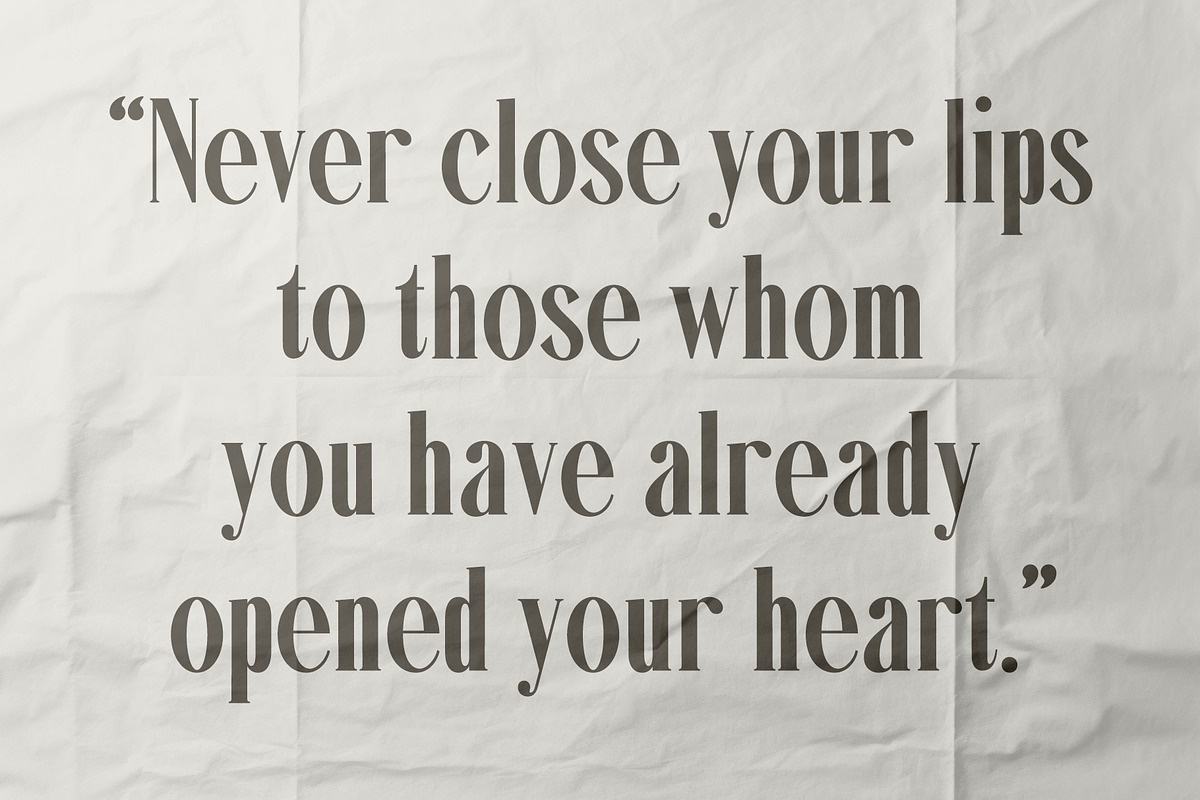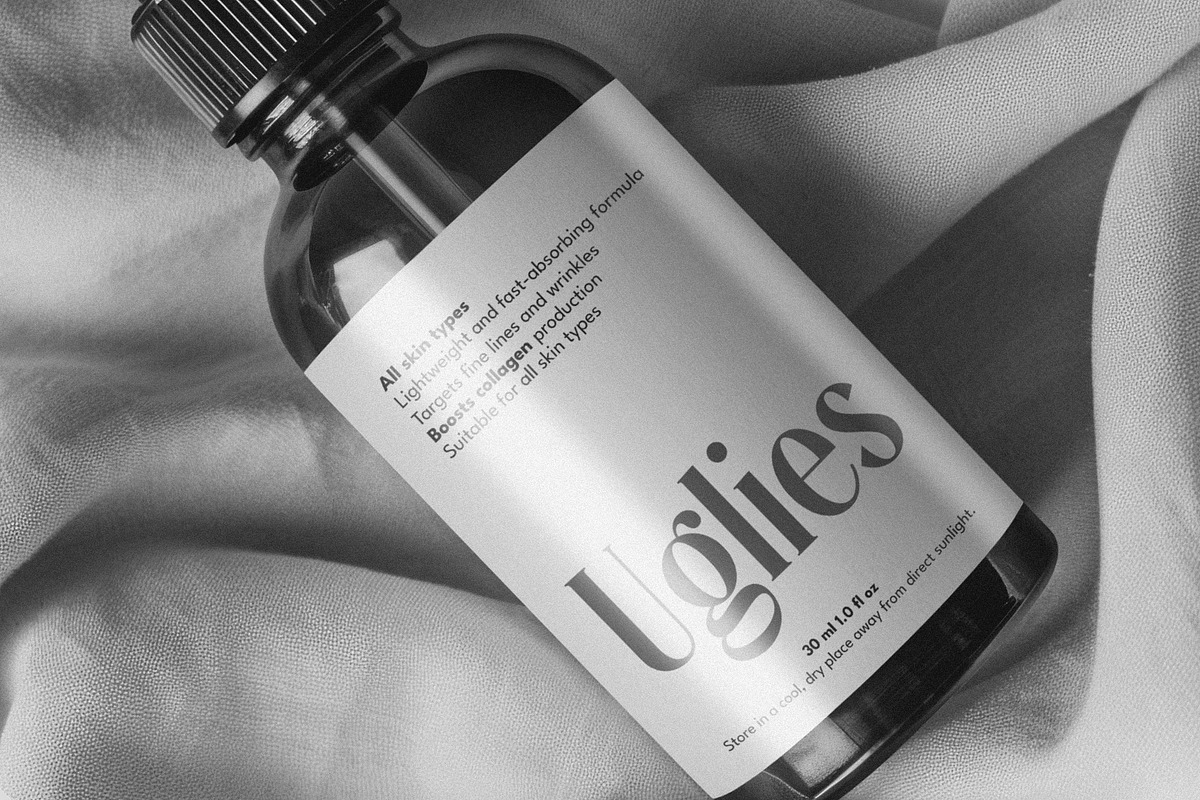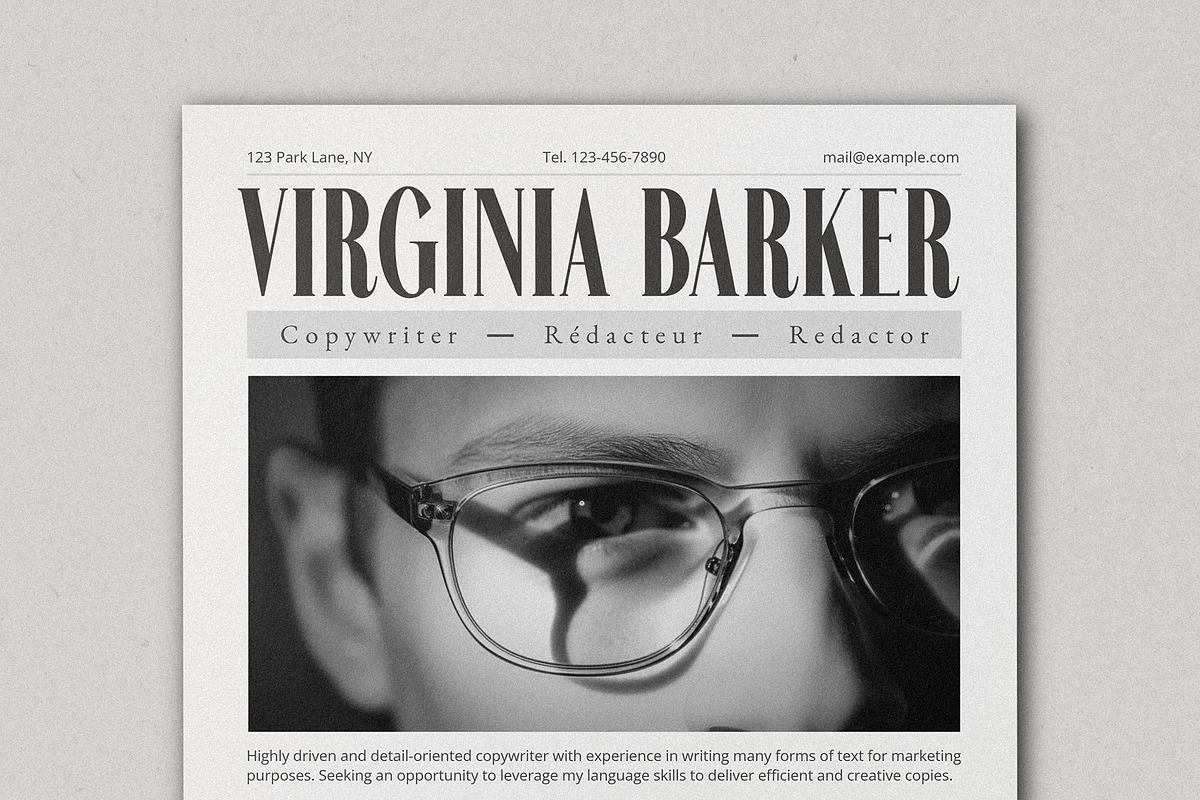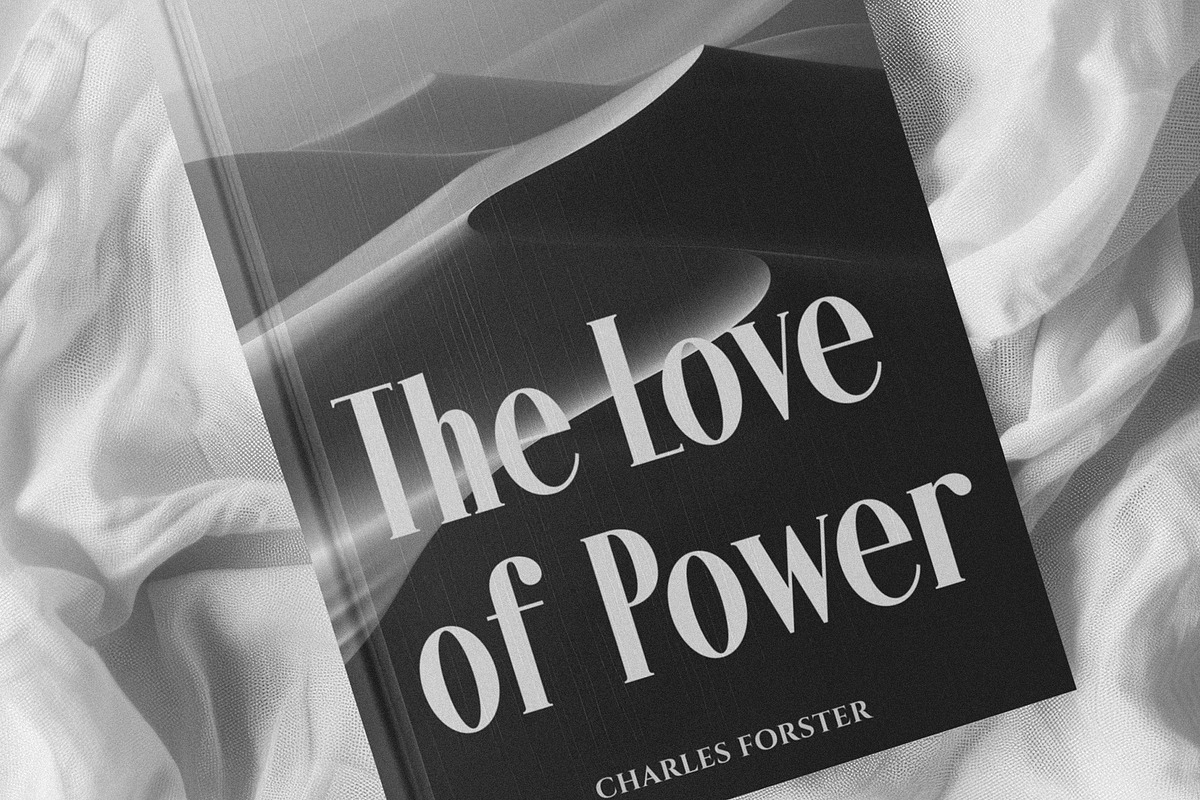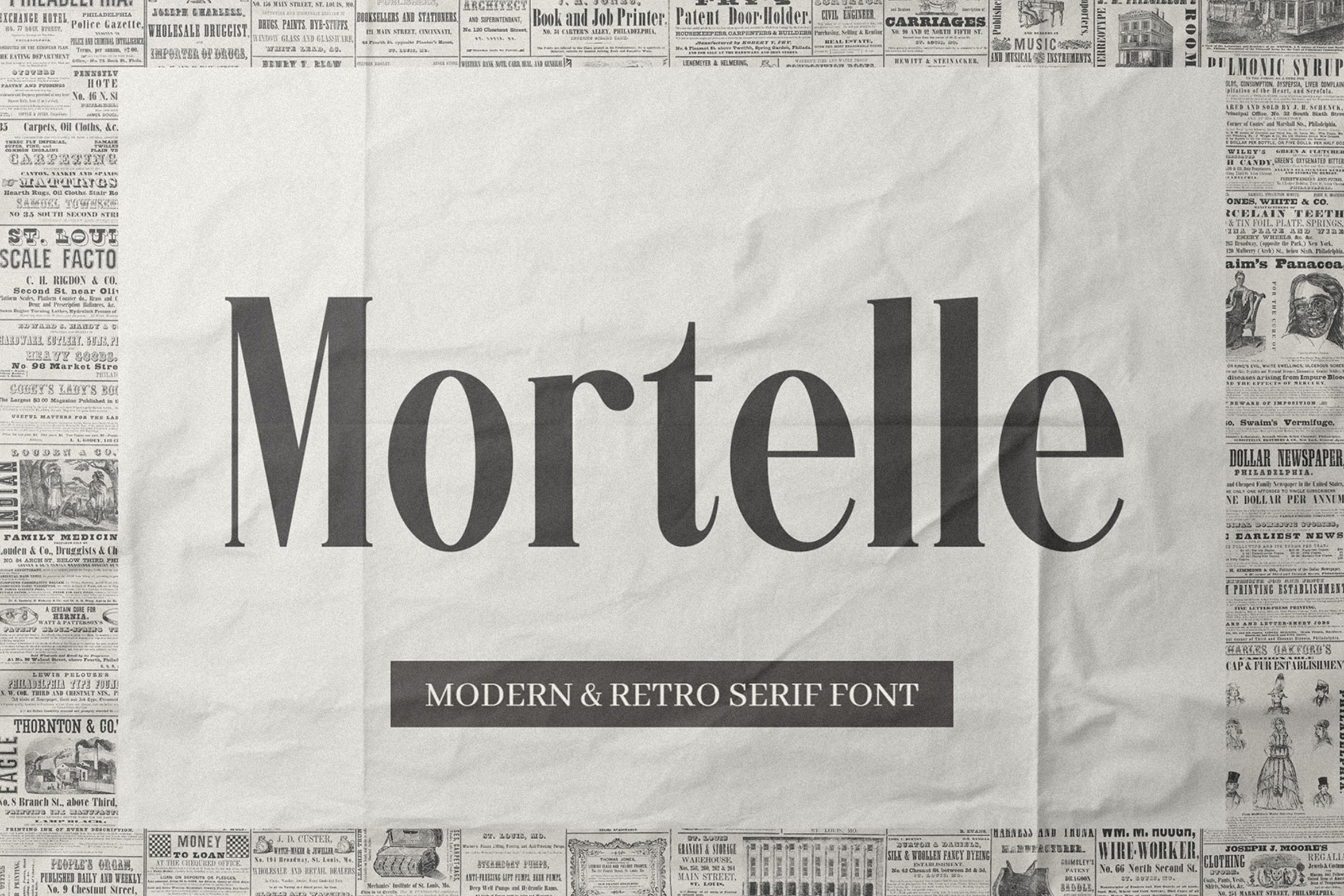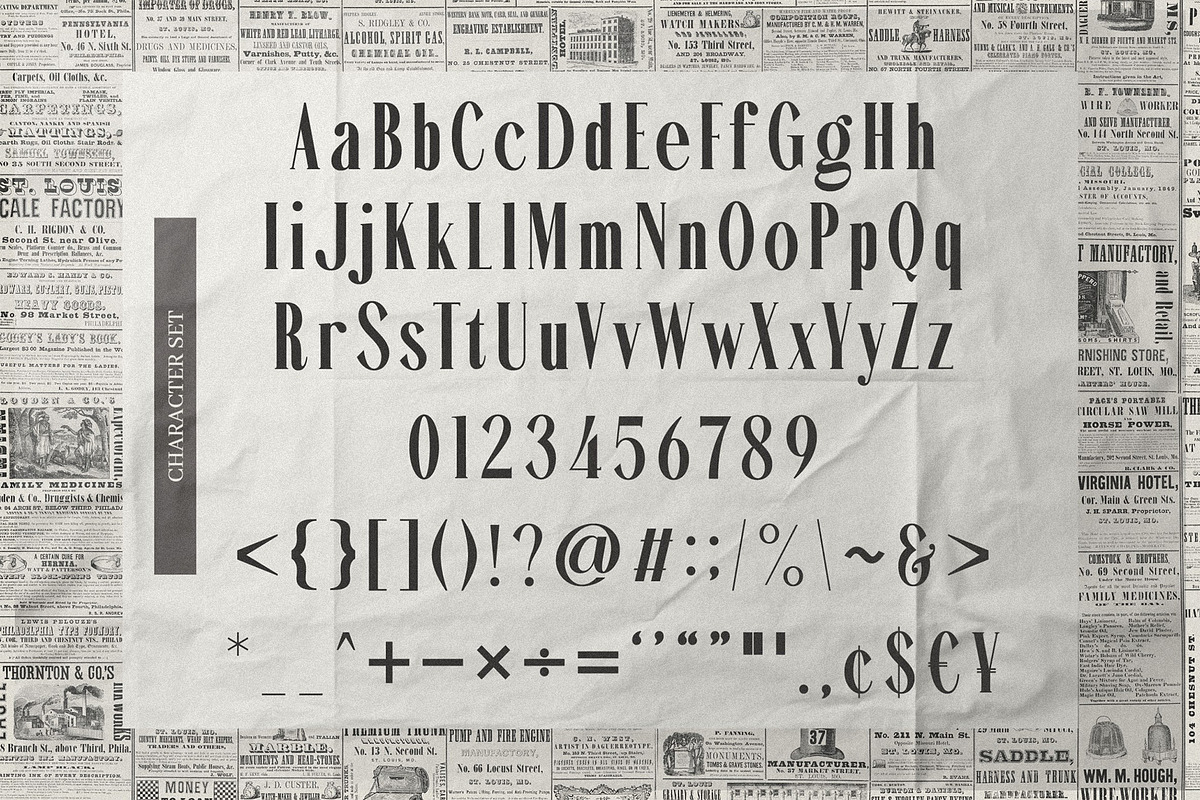
Mortelle - Condensed Serif Font
Introducing Mortelle - Condensed Serif Font. Mortelle is a condensed, bold and simple serif font, This type of font is very suitable for your various needs such as branding projects, logos, social media posts, advertisements, labels, product packaging, photography, wedding designs, watermarks, invitation product designs, stationery, and any project.